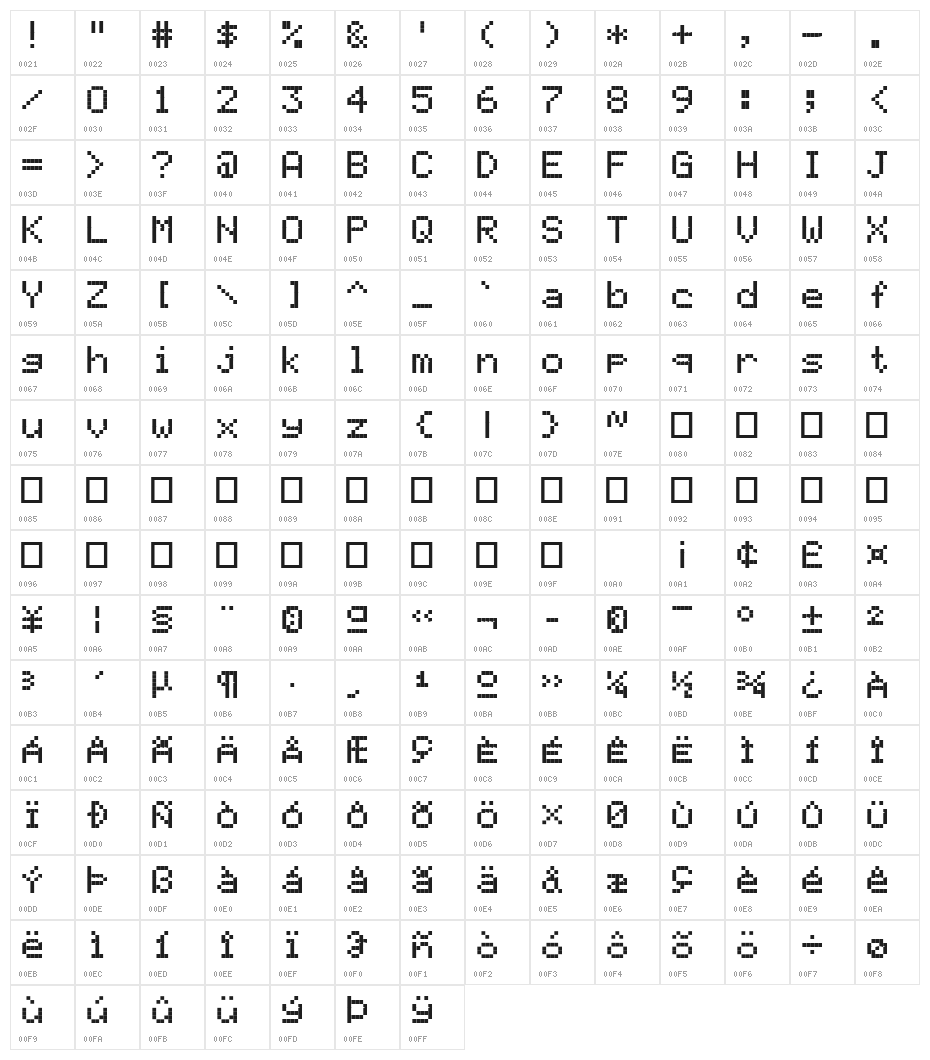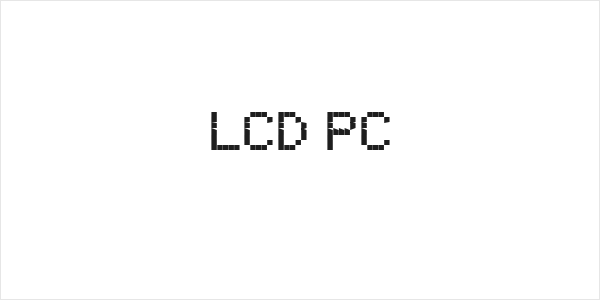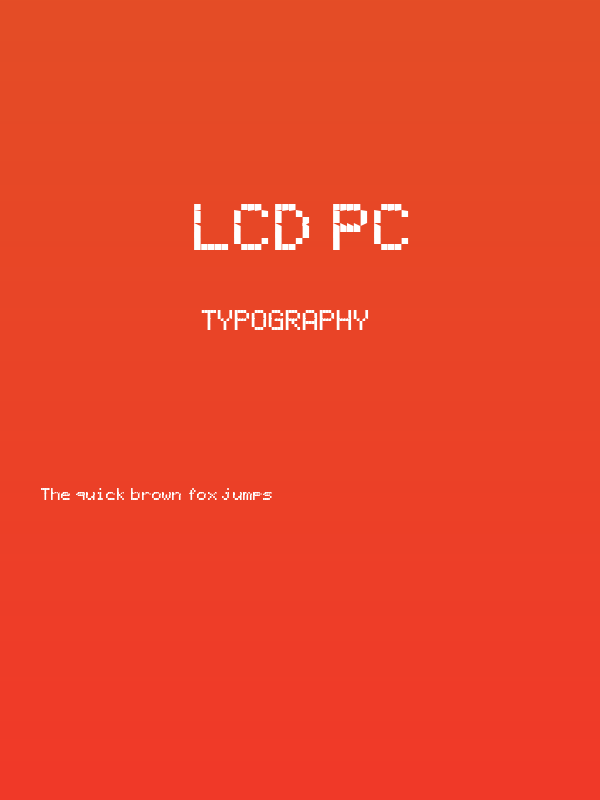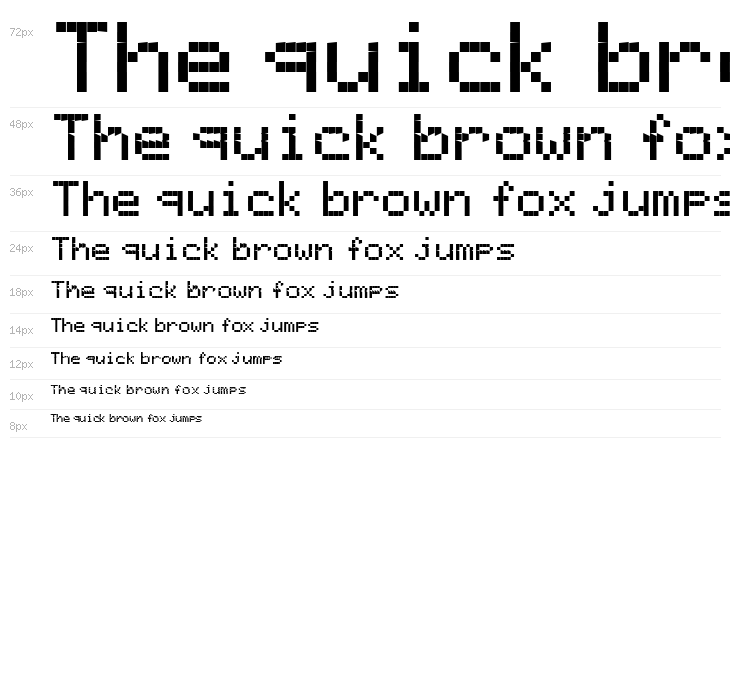
LCD PC Font
LCD PC Description
This font is a pixelated, digital-style typeface reminiscent of old LCD displays. Each character is constructed using a grid of small squares, creating a blocky and geometric appearance. The uppercase and lowercase letters maintain a consistent height, with minimal differentiation in stroke width, giving it a uniform look. Numbers and special characters follow the same pixelated design, ensuring a cohesive style across all glyphs. The font's design is highly legible at small sizes, making it ideal for digital displays and retro-themed projects.
| Use Case | Headlines, Digital displays, Logos |
| Proposed Projects | Ideal for digital displays, retro-themed designs, video game graphics, and tech-related branding. |